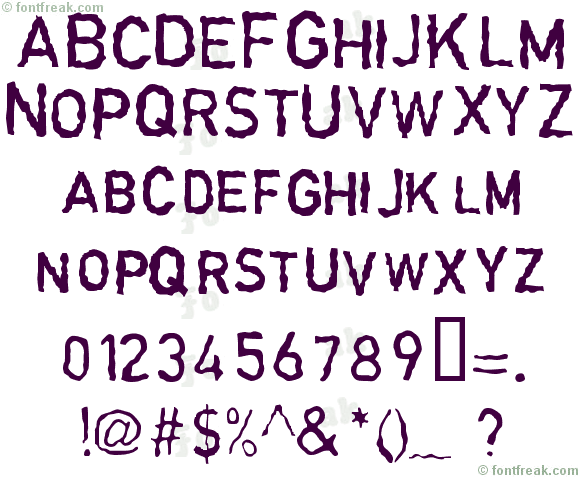
Garbageschrift Thin
About Garbage Schrift
Garbage Schrift by S. Ulrich is a distinctive decorative typeface that captures attention with its unique, playful aesthetic. This font stands out as an artistic expression, blending elements of whimsy and boldness. With its thin stroke weight and irregular forms, Garbage Schrift creates a sense of spontaneity, making it an excellent choice for projects that require a touch of creativity and charm. The spacing between the letters is intentional, allowing for a dynamic flow that enhances readability without sacrificing style.
This font is especially well-suited for a variety of creative applications. Its quirky character makes it ideal for designing eye-catching movie posters, where it can evoke intrigue and curiosity. Additionally, it works wonderfully for restaurant menus, adding a fun and casual vibe that invites customers to explore the offerings. Graphic designers can also leverage Garbage Schrift for branding projects, particularly those aimed at younger audiences or lifestyle brands seeking to convey a sense of modernity and playfulness. Wedding invitations can benefit from its distinctive flair, providing a memorable touch that reflects the couple's personality.